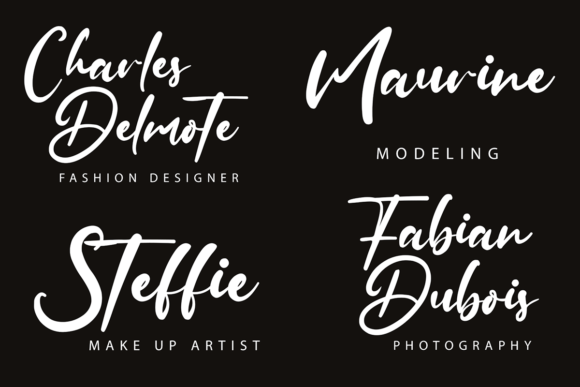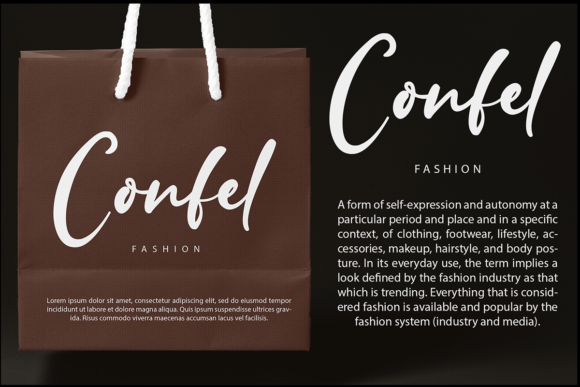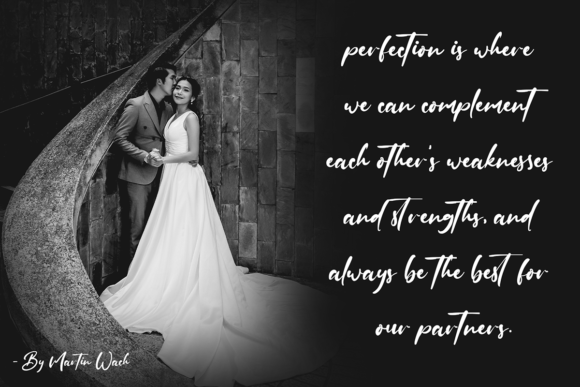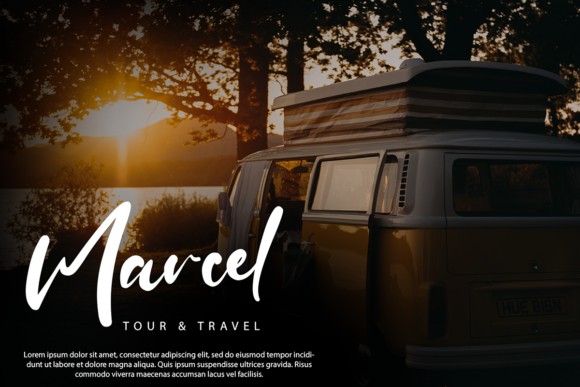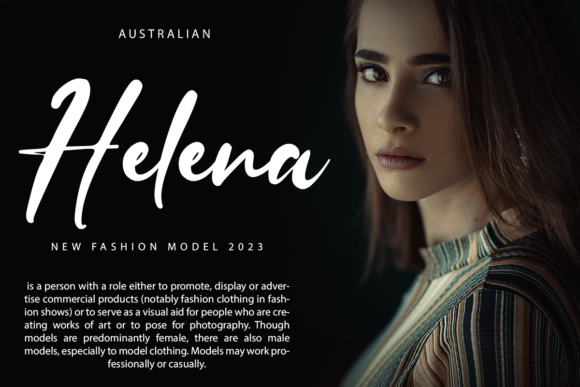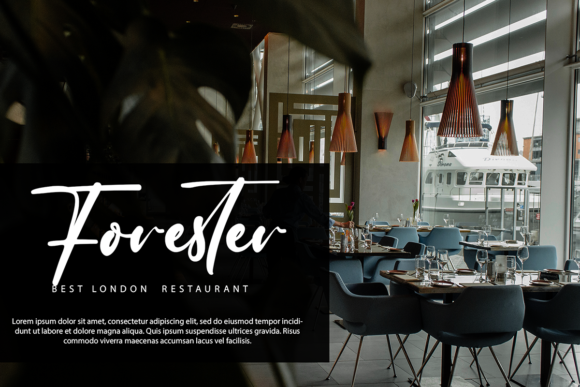
Introducing Diallova Fest Font: Elevate Your Designs with Modern Elegance
In the world of design, fonts play a crucial role in conveying messages, expressing creativity, and establishing brand identities. For designers and crafters seeking a modern script typeface that exudes elegance and sophistication, look no further than Diallova Fest Font. This versatile font is specifically designed to meet the diverse needs of designers, offering a wide range of applications across various mediums.
What is Diallova Fest Font?
Diallova Fest is a contemporary script typeface, carefully crafted to bring a touch of modernity and refinement to any design project. Its fluid strokes, elegant letterforms, and precise craftsmanship make it an ideal choice for a multitude of design applications. Whether you’re working on a logotype, branding design, logo design, digital lettering arts, or even a t-shirt/apparel design, Diallova Fest Font is the perfect companion to help you achieve your creative vision.
Key Features of Diallova Fest Font
- Modern Script Typeface: Diallova Fest boasts a modern script style that adds a touch of sophistication to any design.
- Versatile: Suitable for various design applications, including logotype, branding design, logo design, digital lettering arts, t-shirt/apparel, poster, magazine, signs, and advertising design.
- Elegant Letterforms: The font features elegant, flowing letterforms that add a touch of refinement to any design.
- Precise Craftsmanship: Diallova Fest Font is meticulously crafted to ensure precise lines, smooth curves, and impeccable quality.
Applications of Diallova Fest Font
Diallova Fest Font is designed to be versatile, making it suitable for a wide range of design applications. Here are some of the ways you can use this beautiful font:
- Logotype and Branding Design: Create a lasting impression with a custom logotype that showcases your brand’s personality and values.
- Logo Design: Design a stunning logo that stands out from the crowd and effectively communicates your message.
- Digital Lettering Arts: Add a touch of elegance to your digital art, social media graphics, and online content.
- T-Shirt/Apparel Design: Create eye-catching apparel designs that make a statement.
- Poster and Magazine Design: Elevate your print designs with a sophisticated font that demands attention.
- Signs and Advertising Design: Make a lasting impression with signs and advertisements that feature a clear, readable, and stylish font.
Why Choose Diallova Fest Font?
With so many fonts available, why choose Diallova Fest Font? Here are a few compelling reasons:
- Unique and Modern: Diallova Fest Font offers a fresh, modern take on traditional script typefaces.
- Elegant and Sophisticated: The font exudes elegance and sophistication, making it perfect for high-end designs.
- Versatile: Suitable for a wide range of design applications, Diallova Fest Font is a valuable addition to any designer’s toolkit.
- High-Quality: The font is meticulously crafted to ensure precise lines, smooth curves, and impeccable quality.
Diallova Fest Font is a modern script typeface that offers a unique blend of elegance, sophistication, and versatility. Whether you’re a designer, crafter, or DIY enthusiast, this font is sure to elevate your designs and help you achieve your creative vision. With its wide range of applications, precise craftsmanship, and modern style, Diallova Fest Font is an excellent choice for anyone looking to add a touch of refinement to their designs.